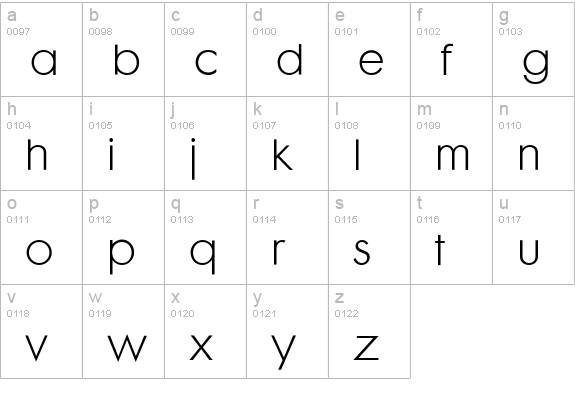
CgFuturaMaxiLt Font Details
CgFuturaMaxiLt is a sleek and modern typeface that exudes sophistication and elegance. Its clean lines and minimalist design make it perfect for a wide range of projects, from branding to editorial design. The light weight of this font adds a touch of delicacy and refinement, making it particularly suitable for titles, headers, and other display purposes. With its balanced proportions and subtle geometric shapes, CgFuturaMaxiLt strikes the perfect balance between classic and contemporary design trends. The versatility of this font allows it to be paired with a variety of other typefaces, making it a valuable addition to any designer's toolkit. What's even better is that CgFuturaMaxiLt is completely free to download at FontsMarket.com. This means you can elevate your projects with this high-quality font without breaking the bank. Don't miss out on the opportunity to enhance your designs with the timeless elegance of CgFuturaMaxiLt - download it today and see the difference it can make!